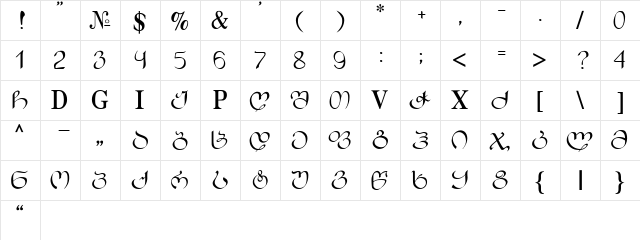
EkaHor Regular
Design Context for EkaHor Typeface
EkaHor takes a measured approach to typography — its balanced proportions and neutral character make it a reliable workhorse for both digital and print work.